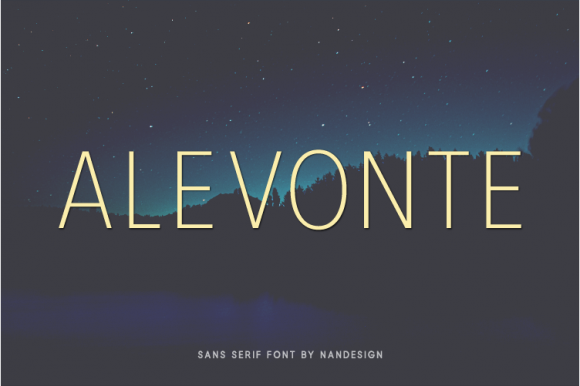
Alevonte Font
Behold the Alevonte Font: A Symphony of Stylish Sans Serif Elegance
Step into the realm of visual aesthetics and discover Alevonte, the captivating sans serif font crafted to elevate your design projects to new heights. This masterpiece, brought to life by the skilled artisans at Nan Design, is a versatile font that effortlessly blends sophistication and playfulness, making it the perfect choice for a wide range of creative endeavors.
Immerse yourself in the world of Alevonte, where every character dances with grace and precision. Its clean lines and sharp angles exude a modern charm that's sure to leave a lasting impression. Whether you're crafting captivating headings, designing exquisite invitations, or creating stunning logos, Alevonte will effortlessly transform your words into works of art.
With Alevonte by your side, you'll embark on a journey of creative exploration, where the possibilities are limitless. Let your imagination soar as you utilize this font's remarkable versatility to create designs that resonate with your audience. From eye-catching displays and headers to unforgettable invitations and save-the-dates, Alevonte is your trusted companion in the world of visual communication.
Experience the Alevonte difference and unlock a new level of creative expression. Its meticulously crafted uppercase alphabet, complete with numbers and symbols, provides you with a comprehensive toolkit to bring your vision to life. Join the ranks of discerning designers who have embraced Alevonte as their font of choice, and elevate your projects to the realm of excellence.